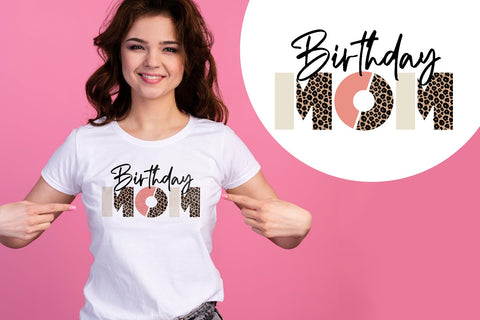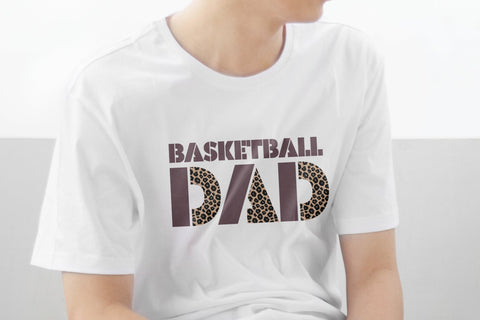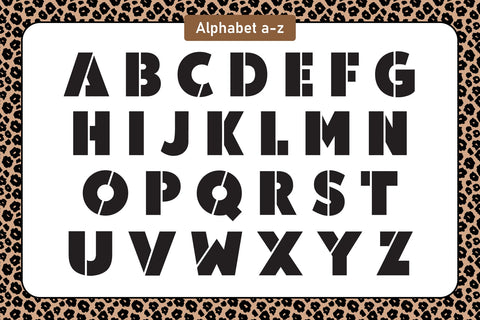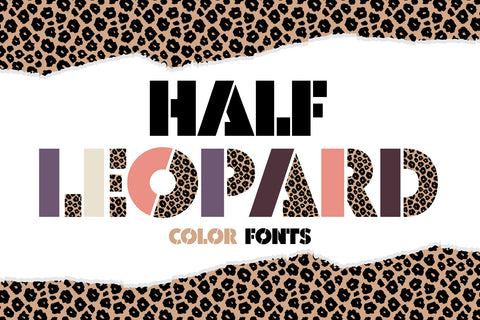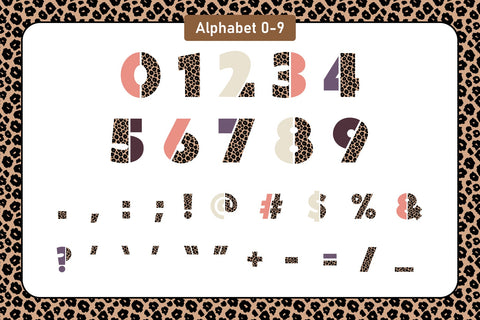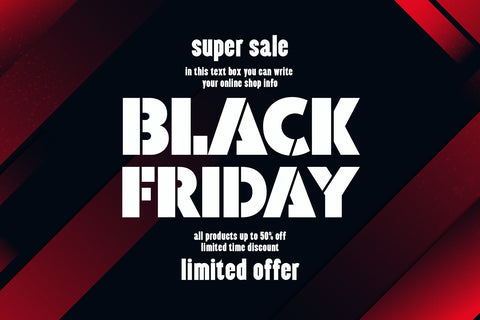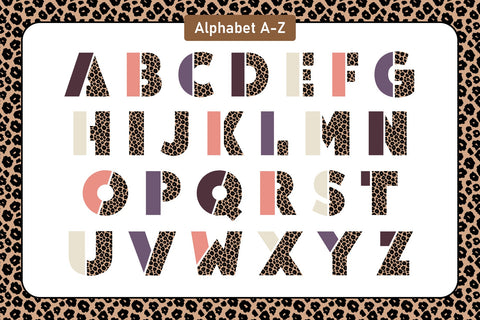
Half Leopard Color Fonts
Half Leopard is a cool and fun decorative color font. It will be suitable for designing t-shirts, tote bags, hats, stickers, wedding designs, logos, cards, quotes, and more! Half Leopard will make any creative idea stand out!